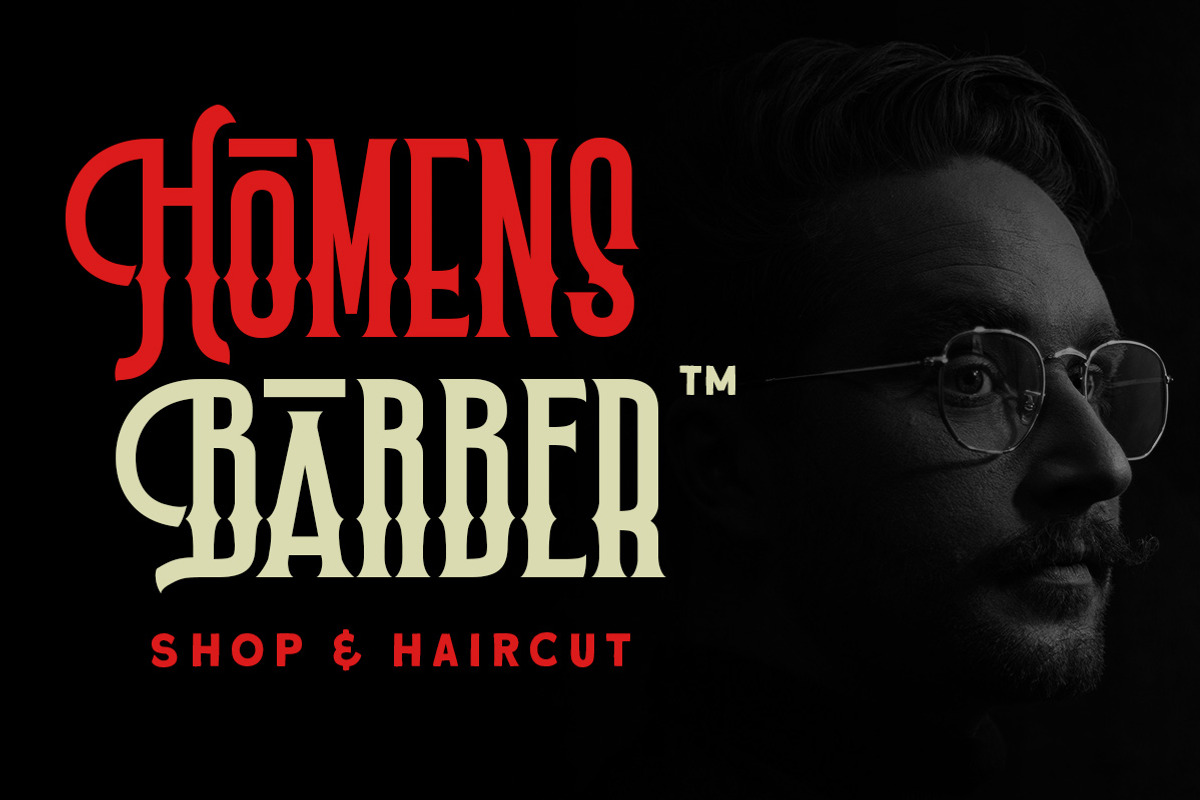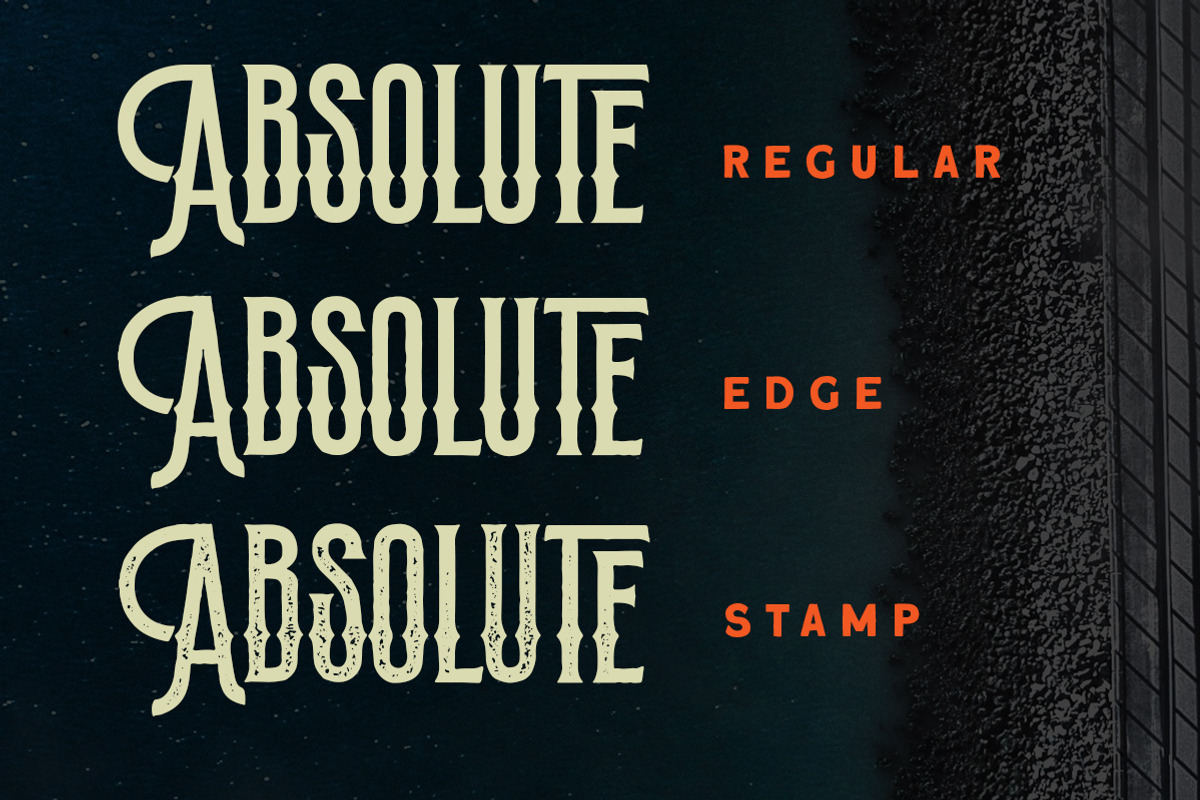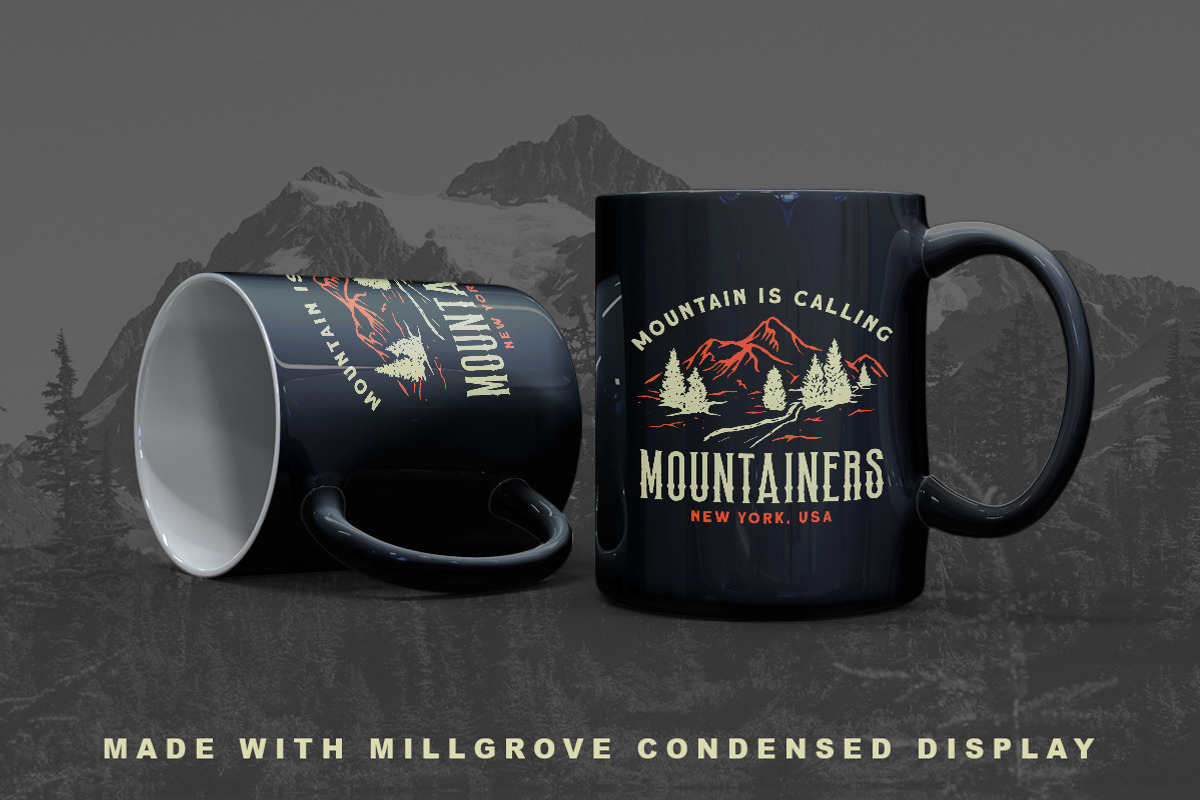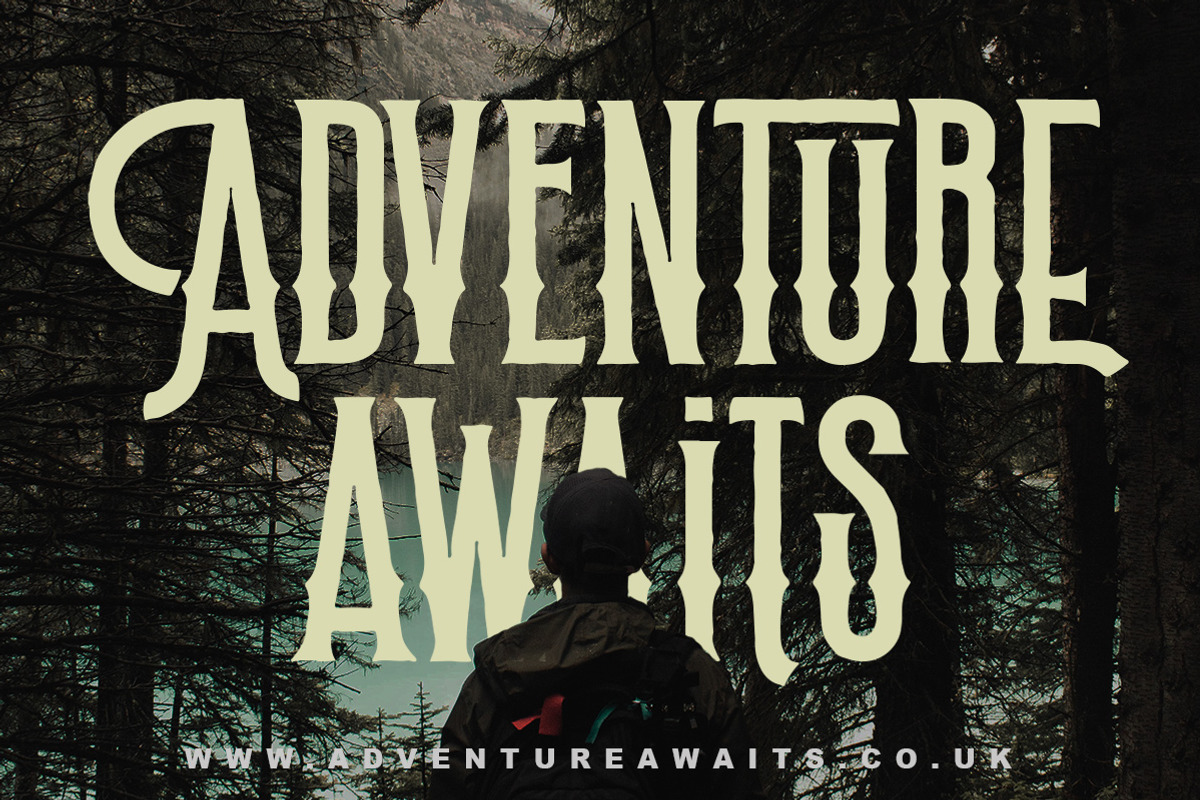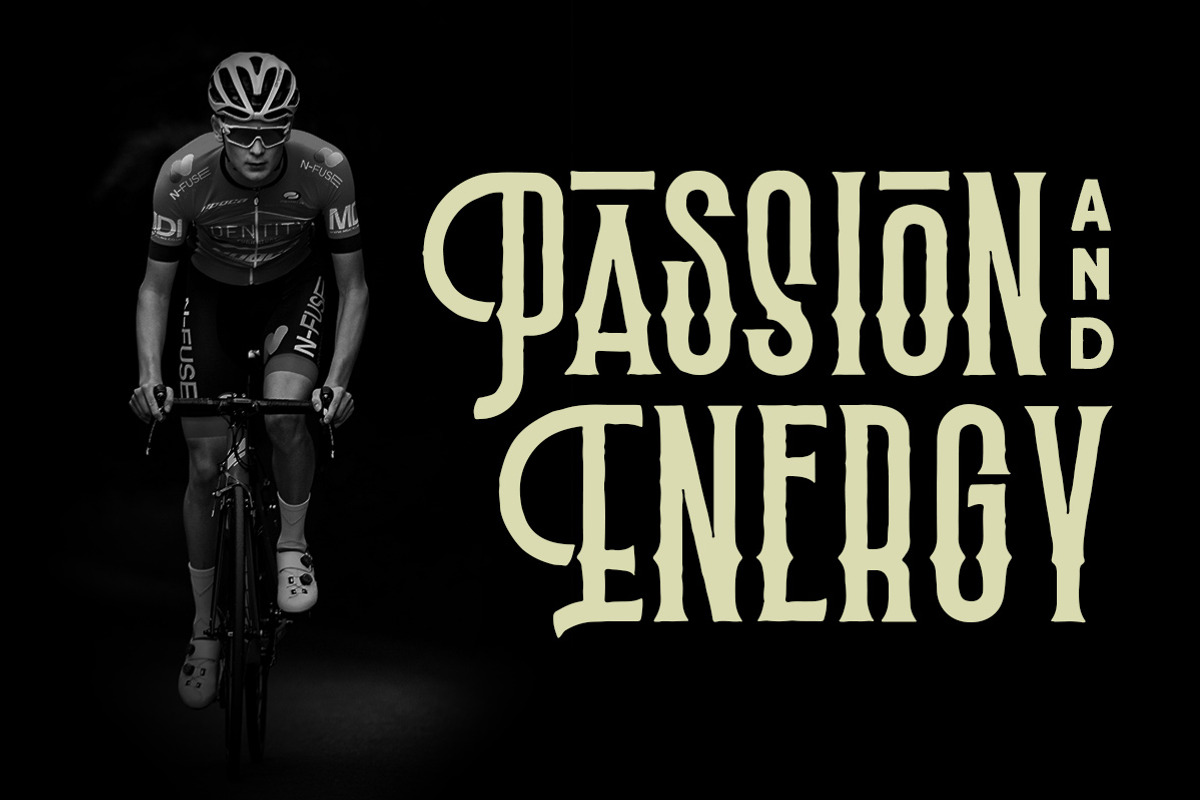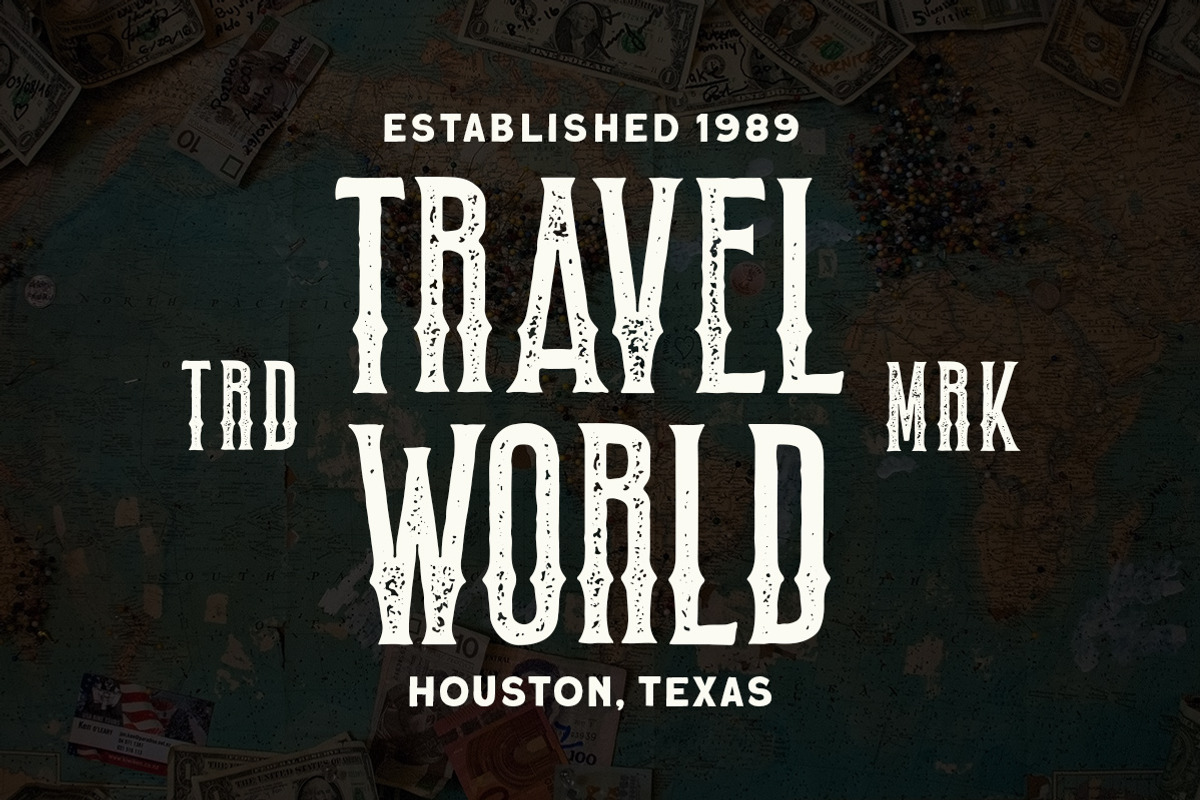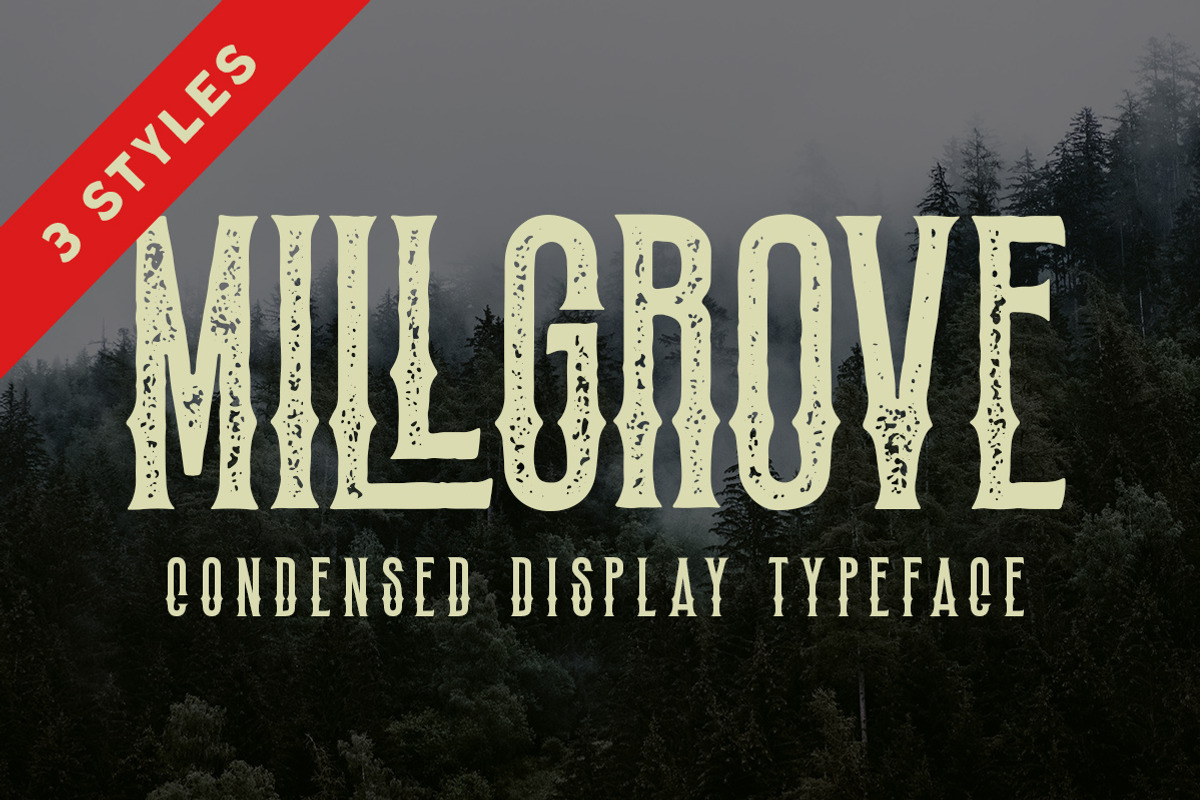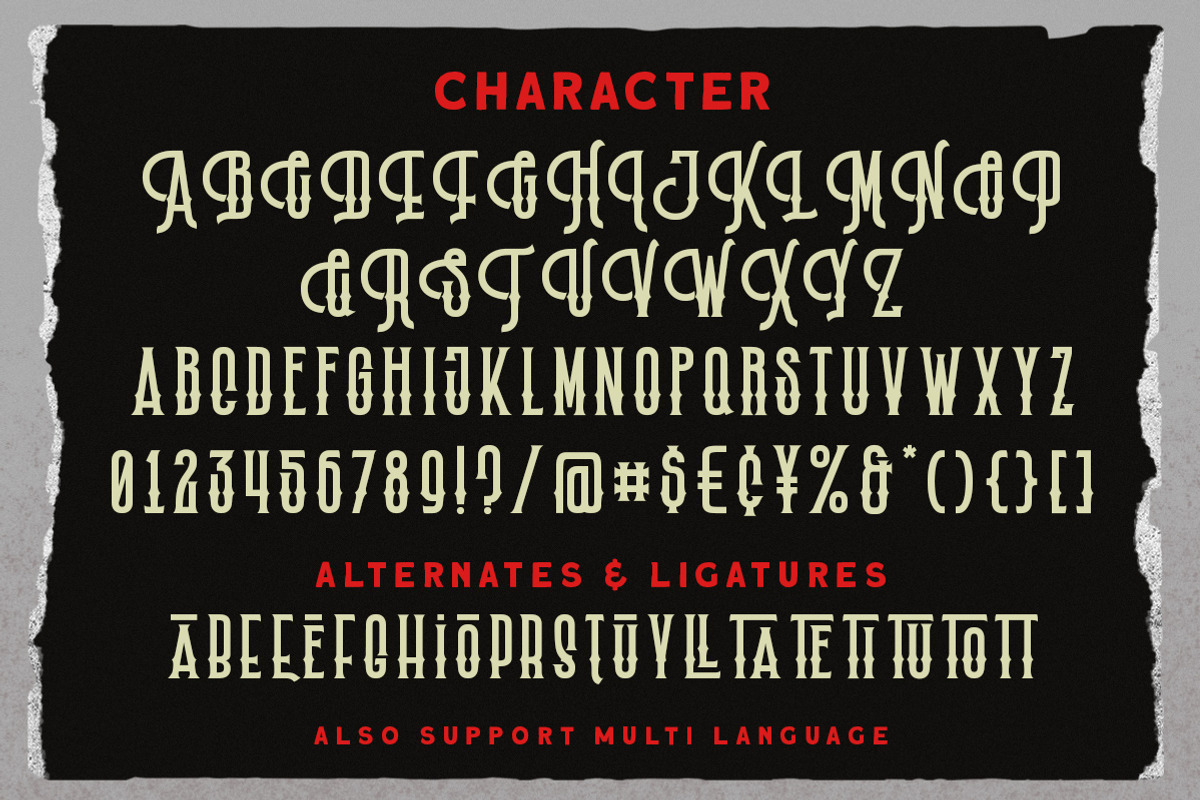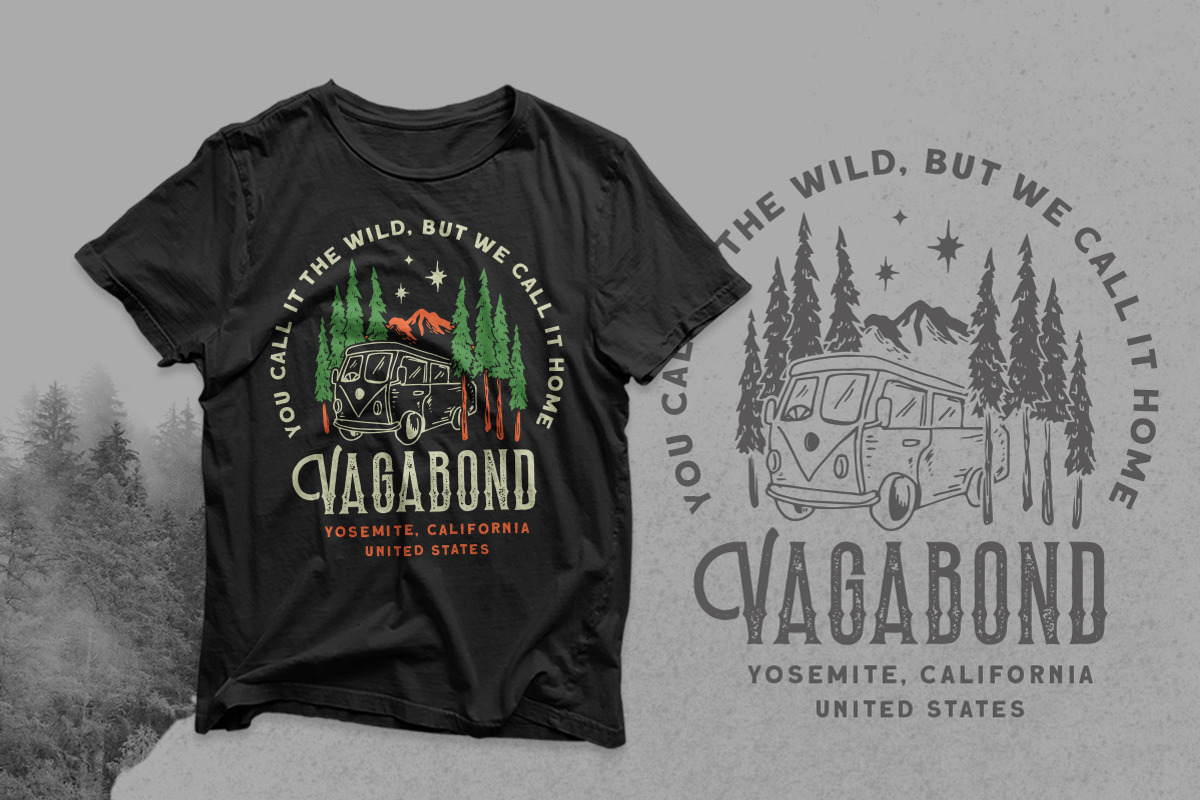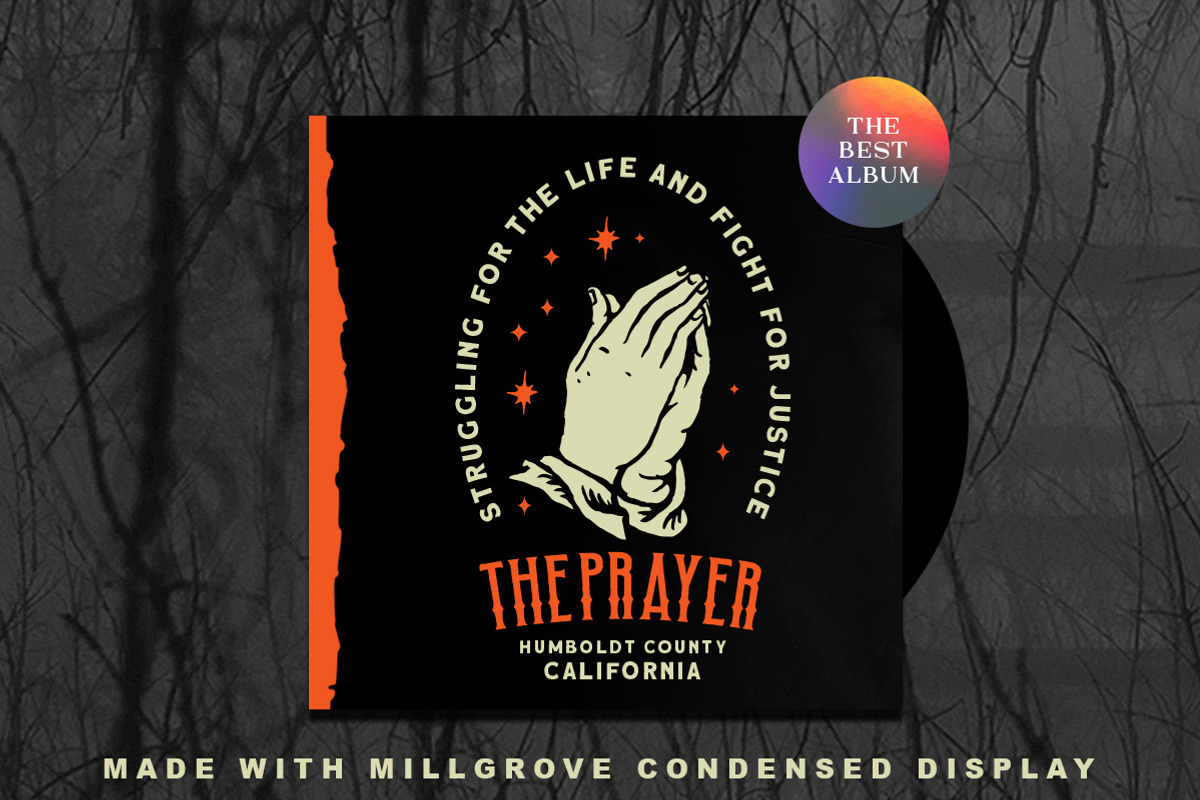
Millgrove - Condensed Display
Introducing, Millgrove - A condensed display typeface. The condensed style make this font looks great and standout for tittle, headline, logo, etc. There are three styles, regular, edge, stamp. Perfectly to be applied to the other various formal forms such as invitations, labels, logos, magazines, books, greeting / wedding cards, packaging, fashion, make up, stationery, novels, labels or any type of advertising purpose.
- alternates & ligatures